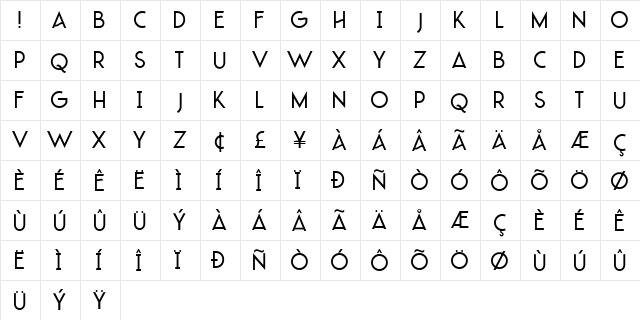
LAQUATSA Regular Font Preview
LAQUATSA Regular
LAQUATSA Regular Font Details
| Designer | PremiereGraphics |
Design Context for LAQUATSA Typeface
LAQUATSA offers clean, dependable letterforms without strong stylistic allegiance, making it a practical choice for designers who need flexibility.